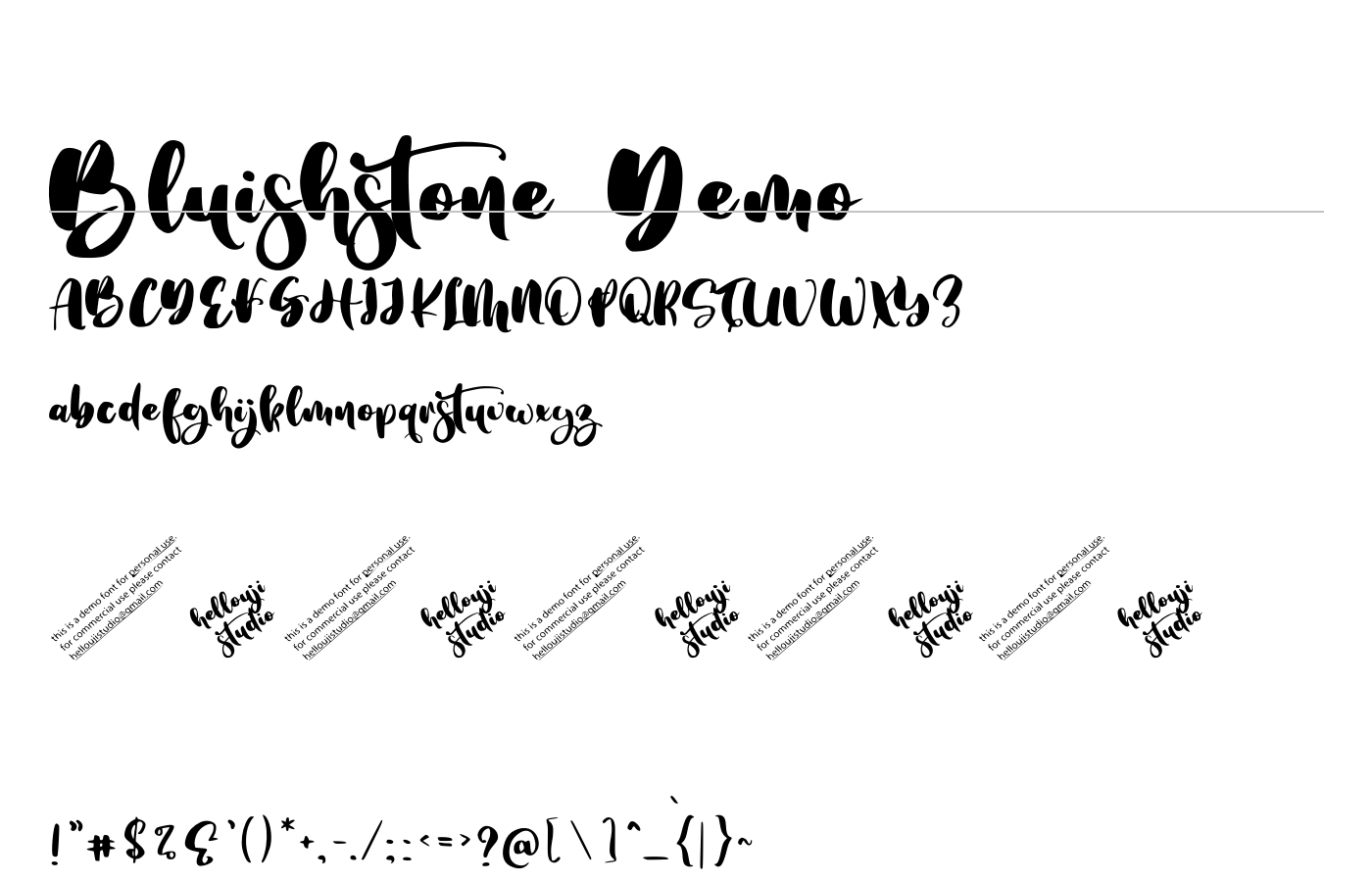
Bluishstone Demo is a bold, playful script font with a hand-lettered feel, featuring thick, flowing strokes and elegant swashes that bring a lively, artistic charm. Its lively character and casual sophistication make it perfect for creative branding, invitations, and eye-catching headlines where personality and warmth are key. This font works well in projects seeking a unique, friendly, and stylish touch.
Bluishstone Demo Font
About Bluishstone Demo Font
| Font family | Bluishstone Demo Font |
| Designer | Syifa Fauzia Zazuli (HelloUjiStudio) |